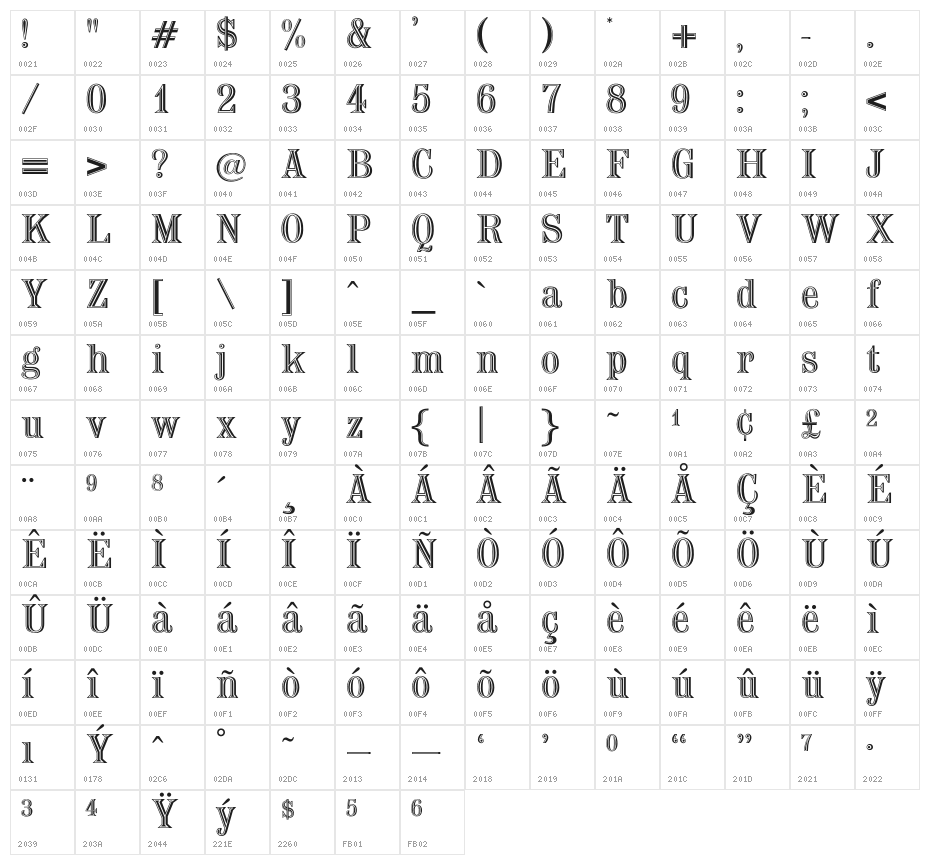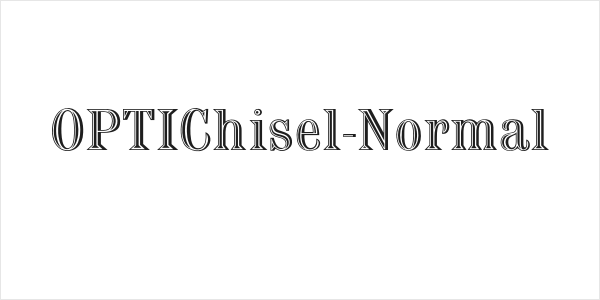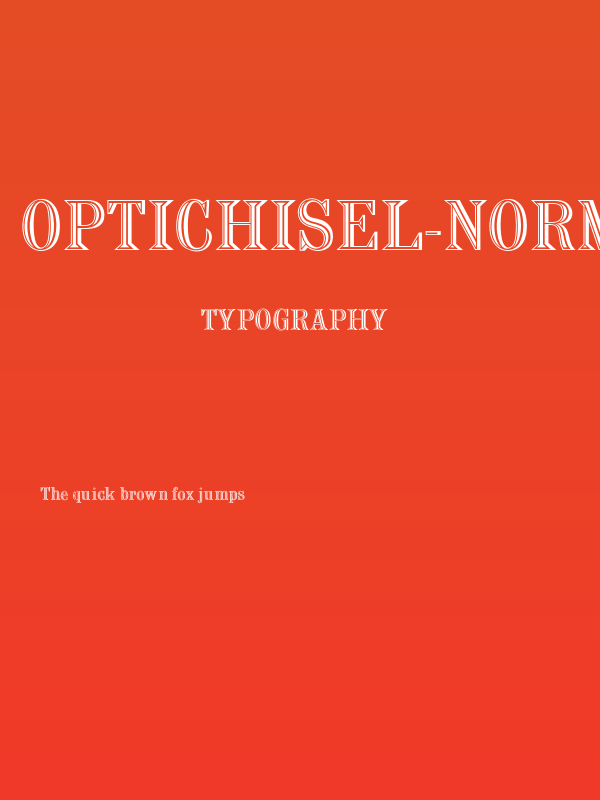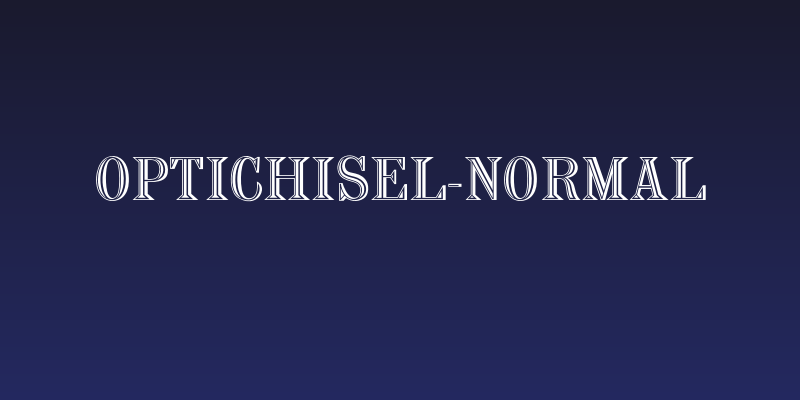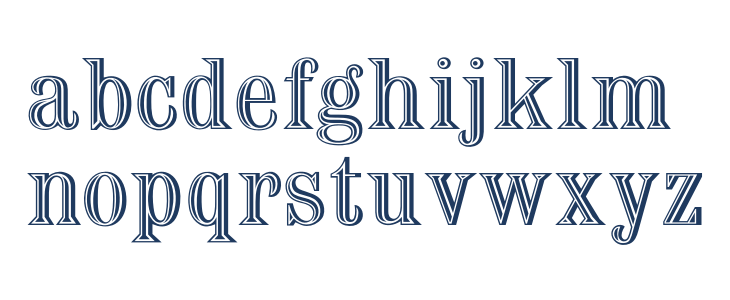
OPTIChisel-Normal Font
OPTIChisel-Normal Description
This font features a bold and striking design with a chiseled, three-dimensional appearance. The uppercase and lowercase letters are crafted with a strong serif style, giving them a classic and authoritative look. The numbers and special characters maintain this bold aesthetic, ensuring consistency across all glyphs. The font's design is reminiscent of engraved lettering, with a sense of depth and shadow that adds to its visual impact. The overall style is both decorative and functional, making it suitable for a variety of design projects that require a touch of elegance and strength.
| Overall Style | Classic, Decorative |
| Proposed Projects | Ideal for use in logos, headlines, posters, and branding materials where a strong and classic impression is desired. |